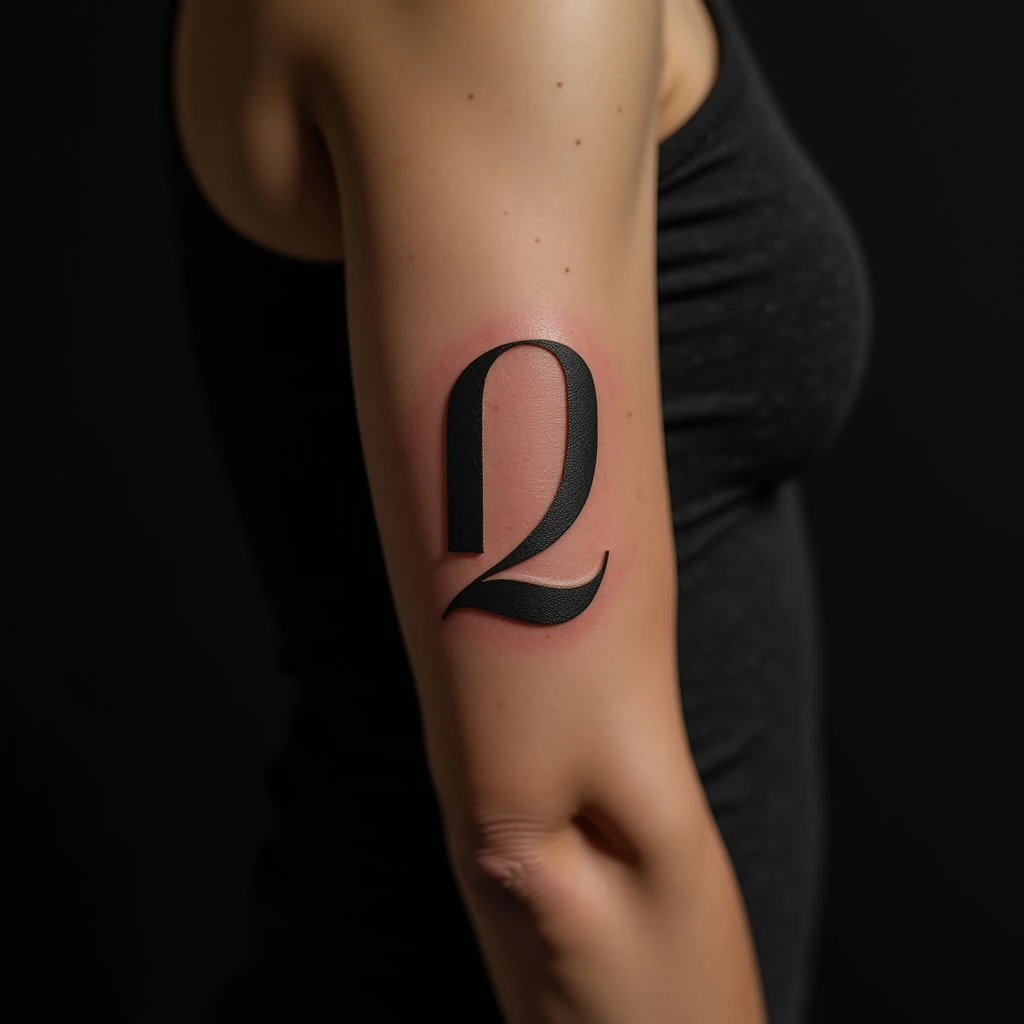
Discover the best fonts for number tattoos! Explore typography options, placement ideas (especially on the arm), and design inspiration using black-grey-gold color palettes. Find your perfect numeric tattoo.
Font for Tattoos Numbers: Choosing the Perfect Style
Fine black linework establishes a stylized "Q" on the upper arm. The design employs subtle shading to create depth, following the natural curve of the limb. A minimalist aesthetic is evident in its clean lines and high level of detail.
Considering numeric tattoos? This placement on the arm offers a visible yet adaptable canvas. Exploring typography options—especially when using black, grey, or gold ink—can elevate a simple number into a personalized statement piece. The choice of font dramatically impacts the overall feel.
Beyond just aesthetics, selecting the right font for your numeric tattoo reflects personality and intention. Bold fonts convey strength; elegant scripts suggest sophistication. Think about how the chosen style complements both the number itself and your individual narrative.